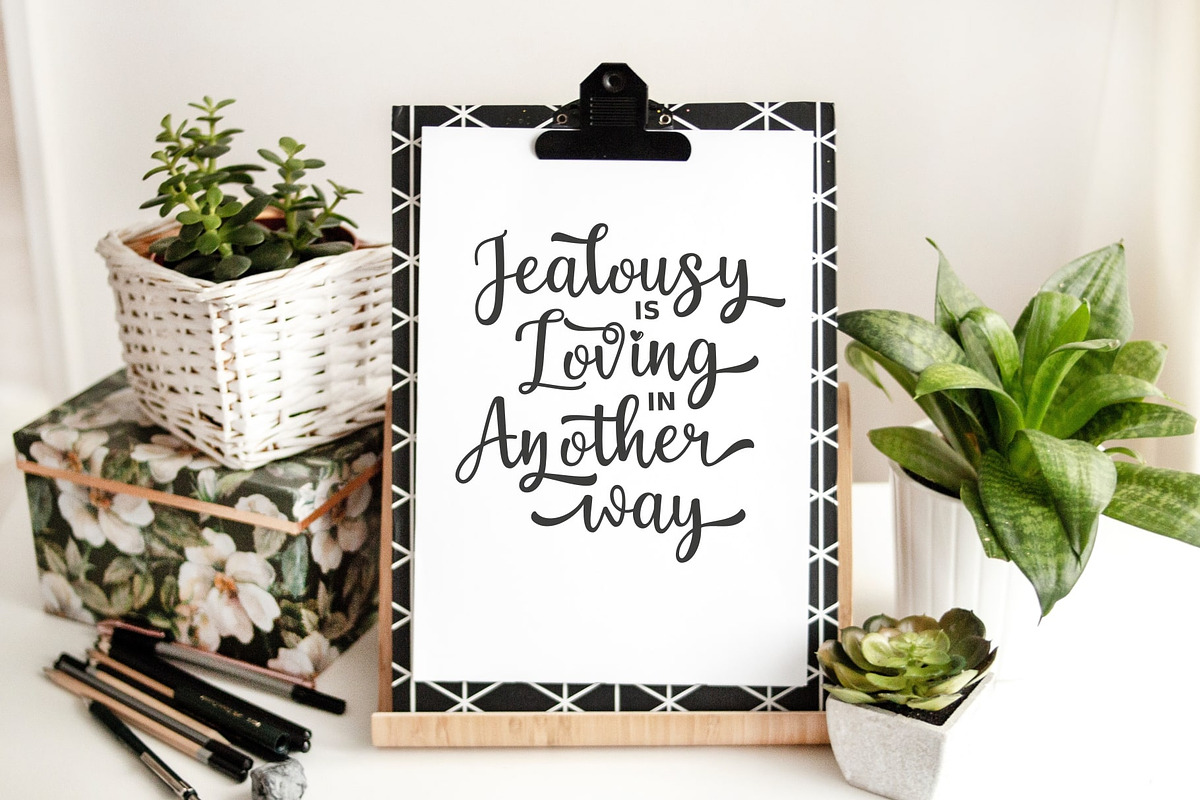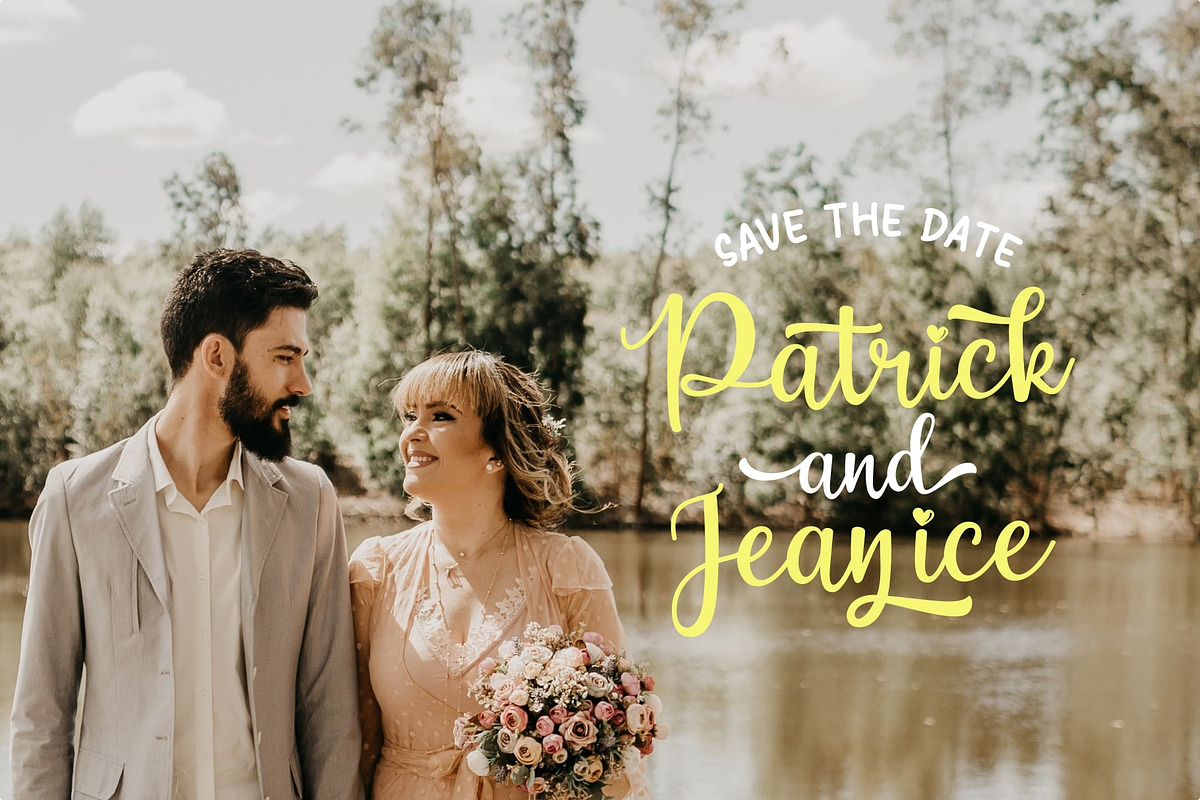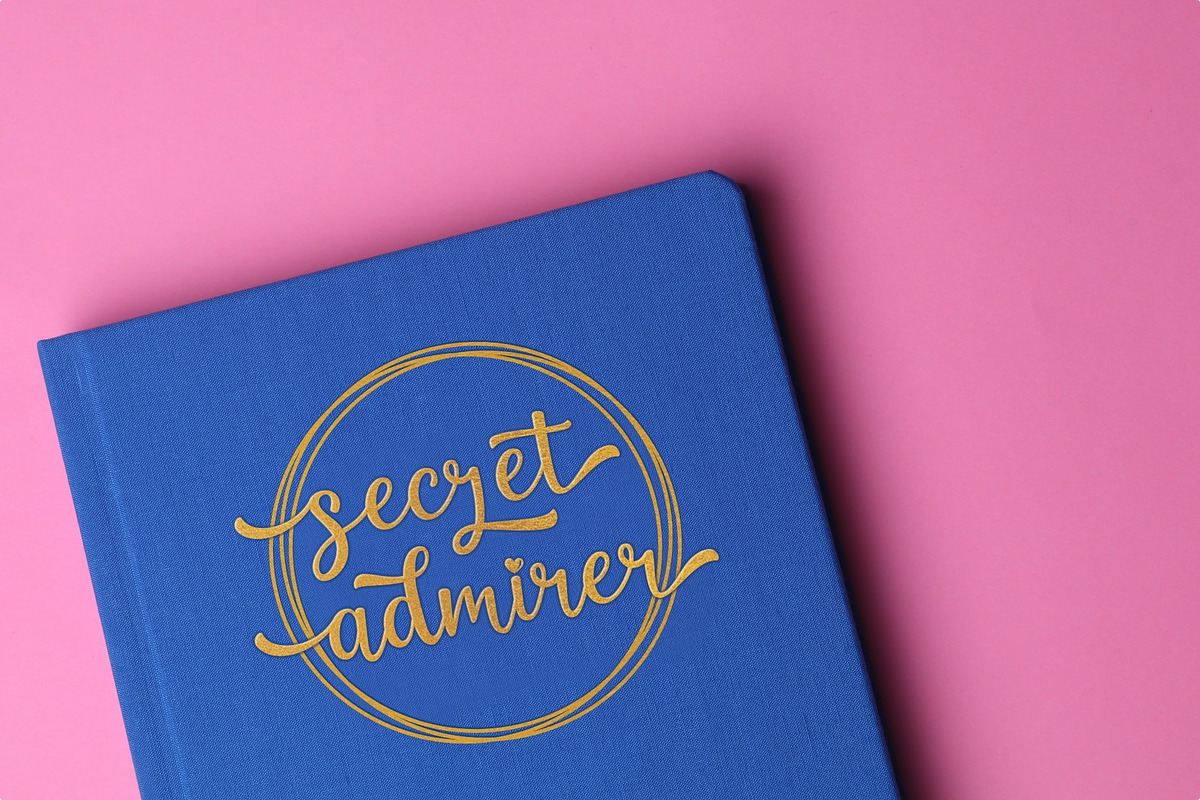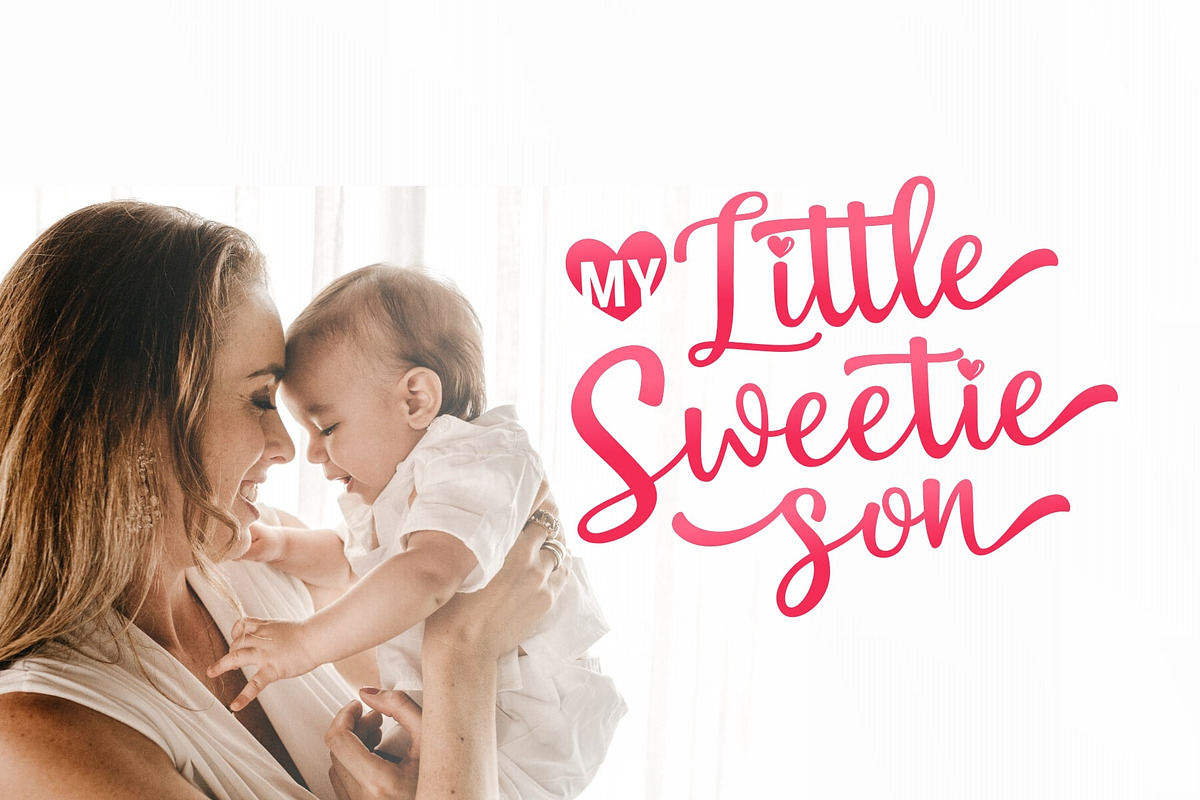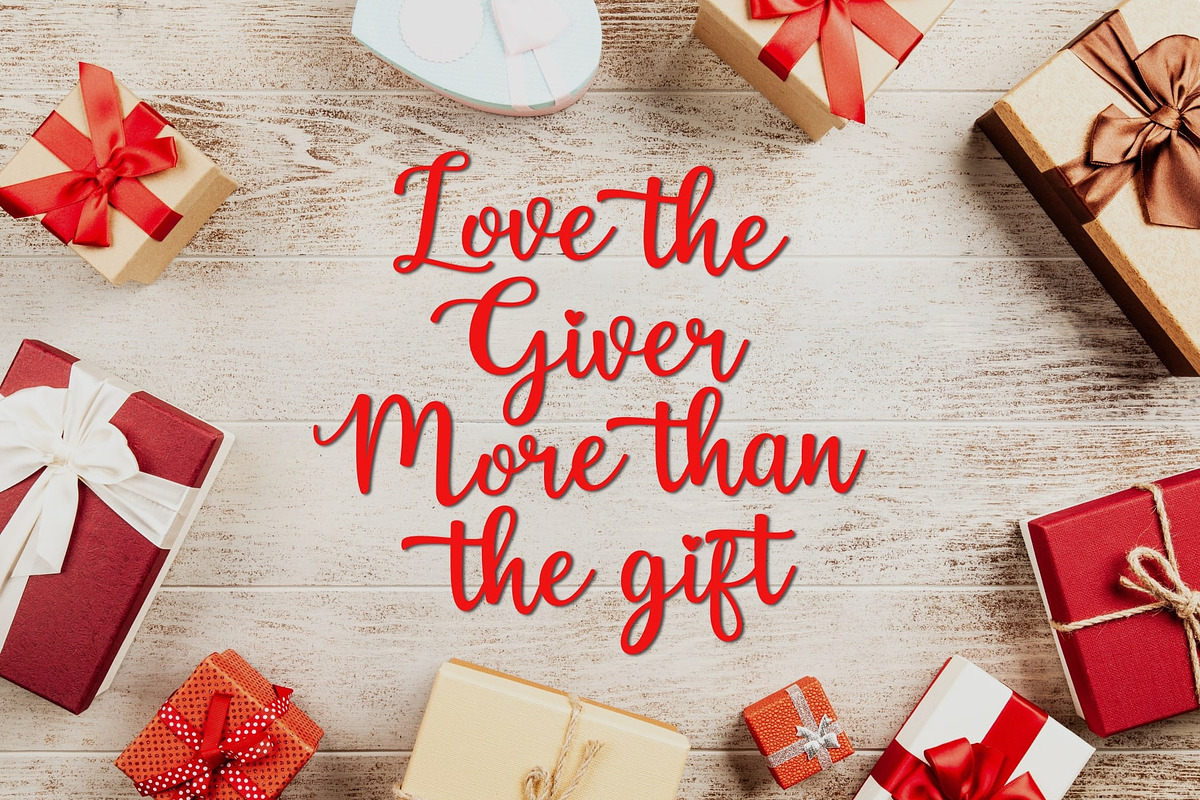
Hey Beibeh - lovely font
Introducing a new font called Hey Beibeh. As the name, Hey Beibeh comes with love and romantic themes. The theme of love and romance will be increasingly felt with the heart icon in the letters i and j. You can access OpenType features in Hey Beibeh fonts such as stylistic set alternate (SS01-SS02), ligatures set, and alternate.
Hey Beibeh - lovely font by Java pep fits naturally into Branding, posters, packaging, typography.